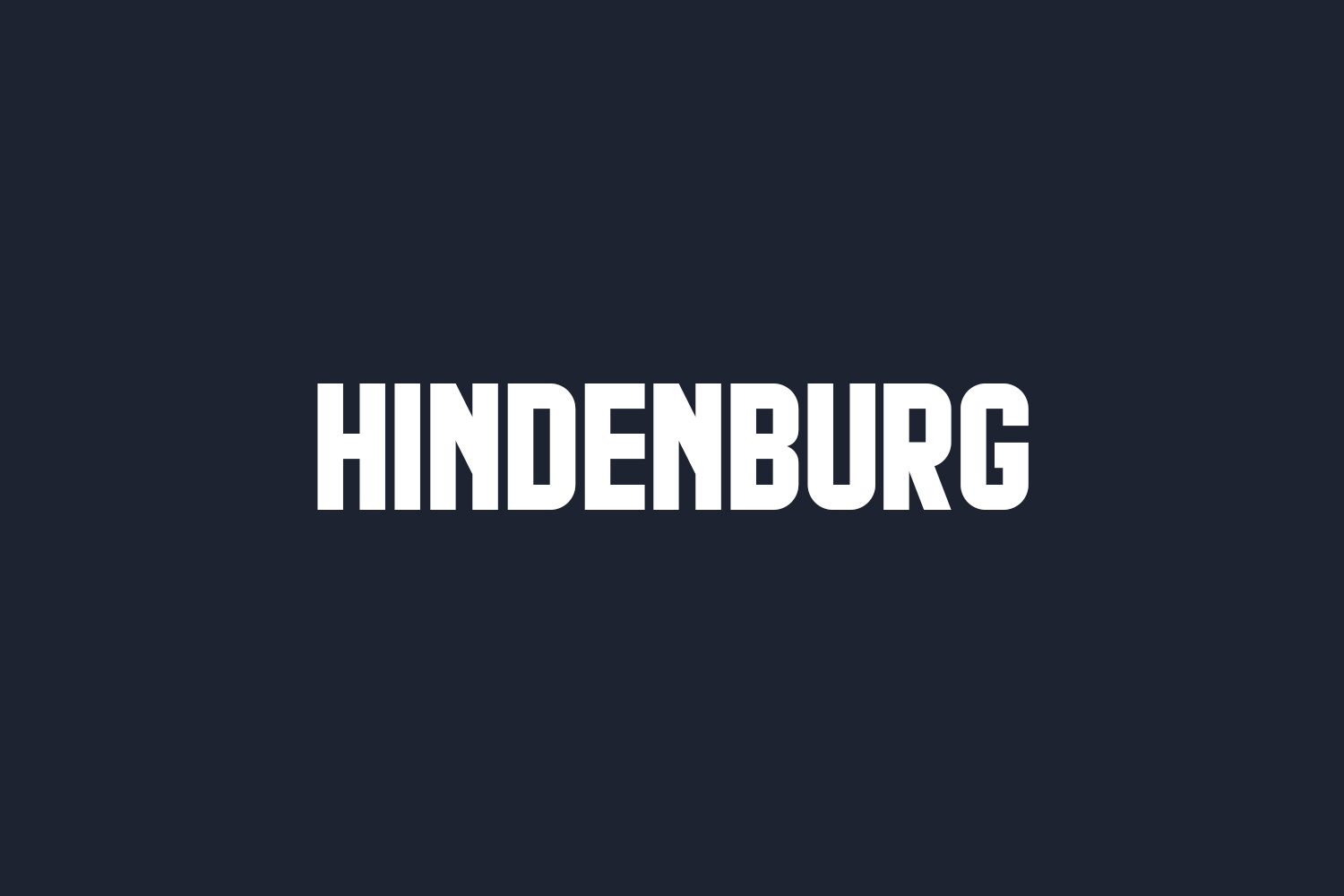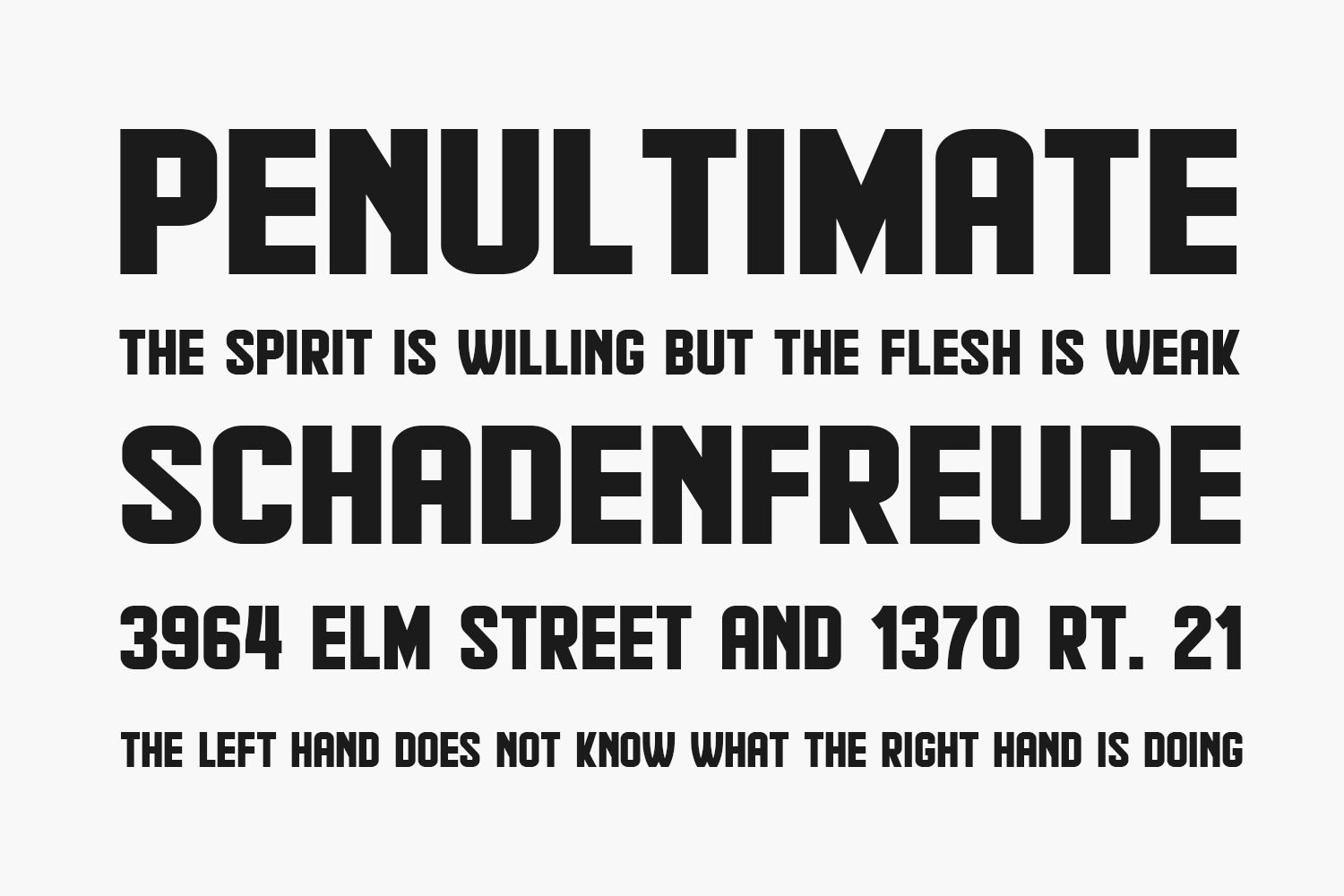
Hindenburg Free Font Family is an awesome retro display font. Great for a variety of vintage-inspired projects. Hindenburg Free Font Family was designed by Vladimir Nikolic and is free for personal use only. Please purchase the full version for commercial use.
Designed by Vladimir Nikolic
Hindenburg Regular The quick brown fox jumps over the lazy dog
Hindenburg Italic The quick brown fox jumps over the lazy dog
Hindenburg Condensed The quick brown fox jumps over the lazy dog
Hindenburg Condensed Italic The quick brown fox jumps over the lazy dog
Hindenburg Condensed Shadow The quick brown fox jumps over the lazy dog
Hindenburg Condensed Shadow Italic The quick brown fox jumps over the lazy dog